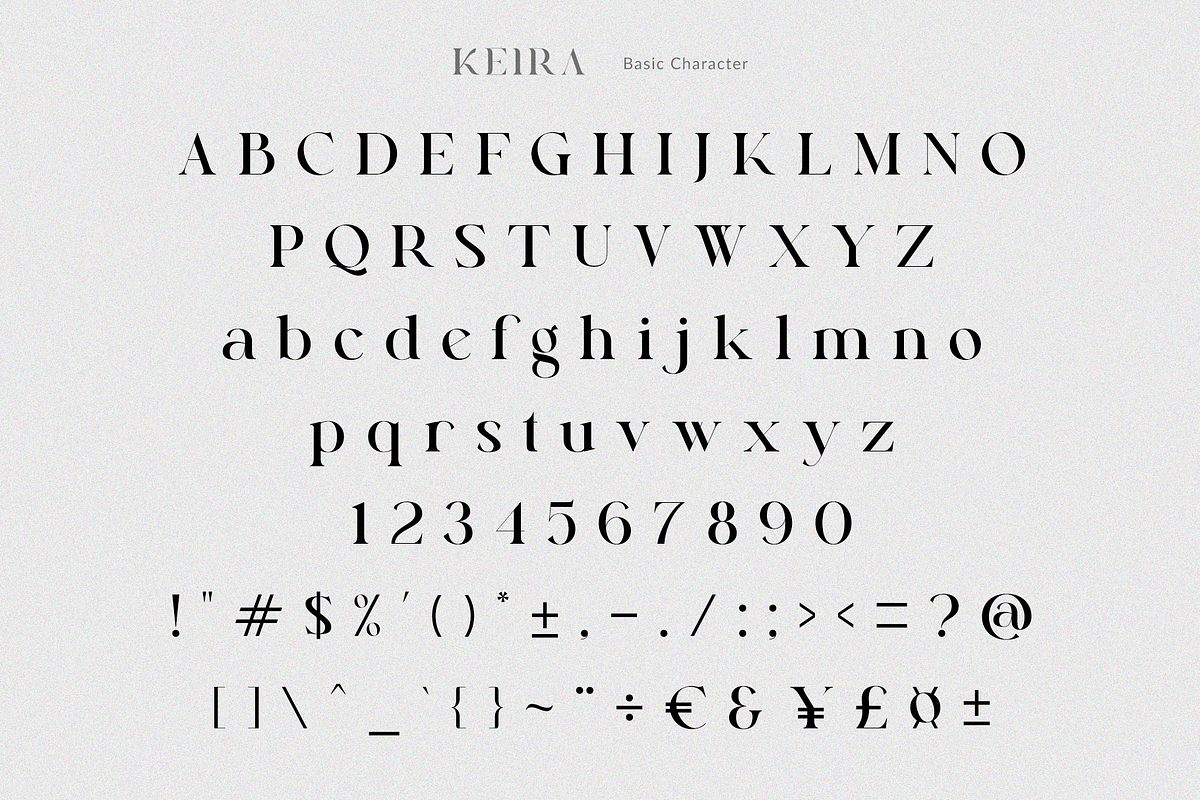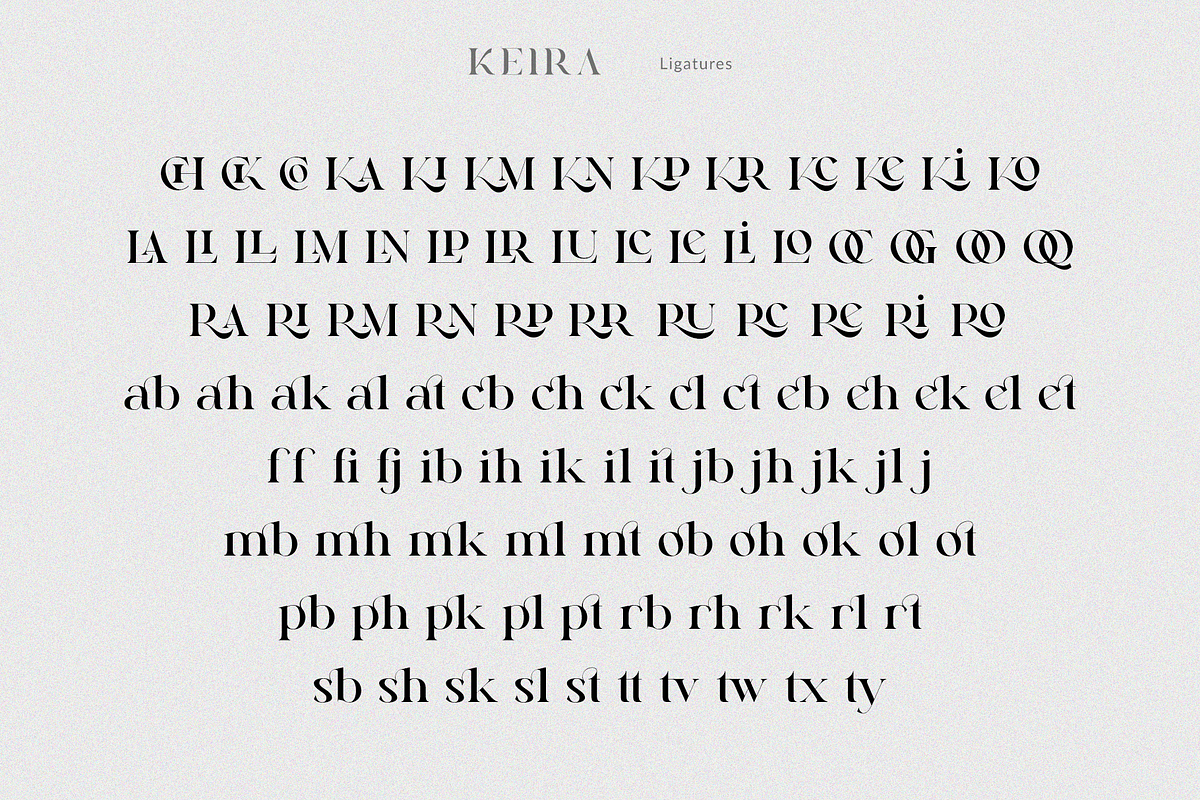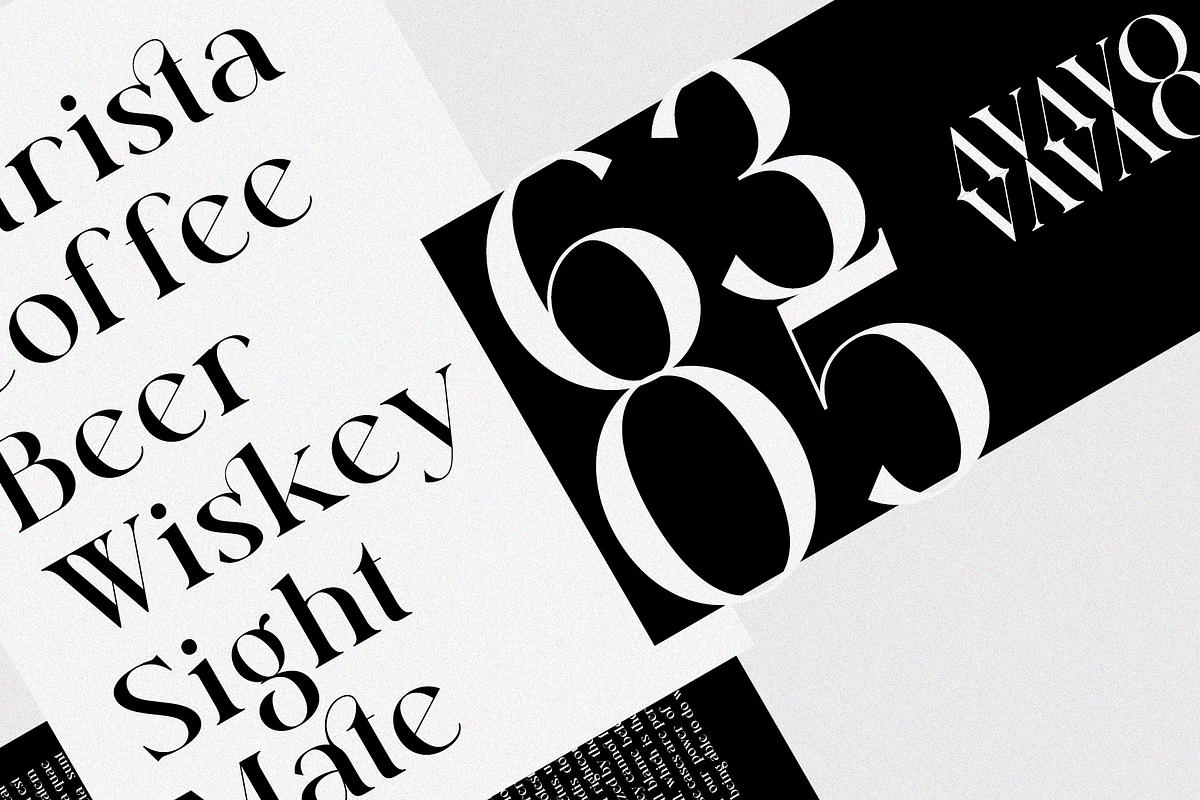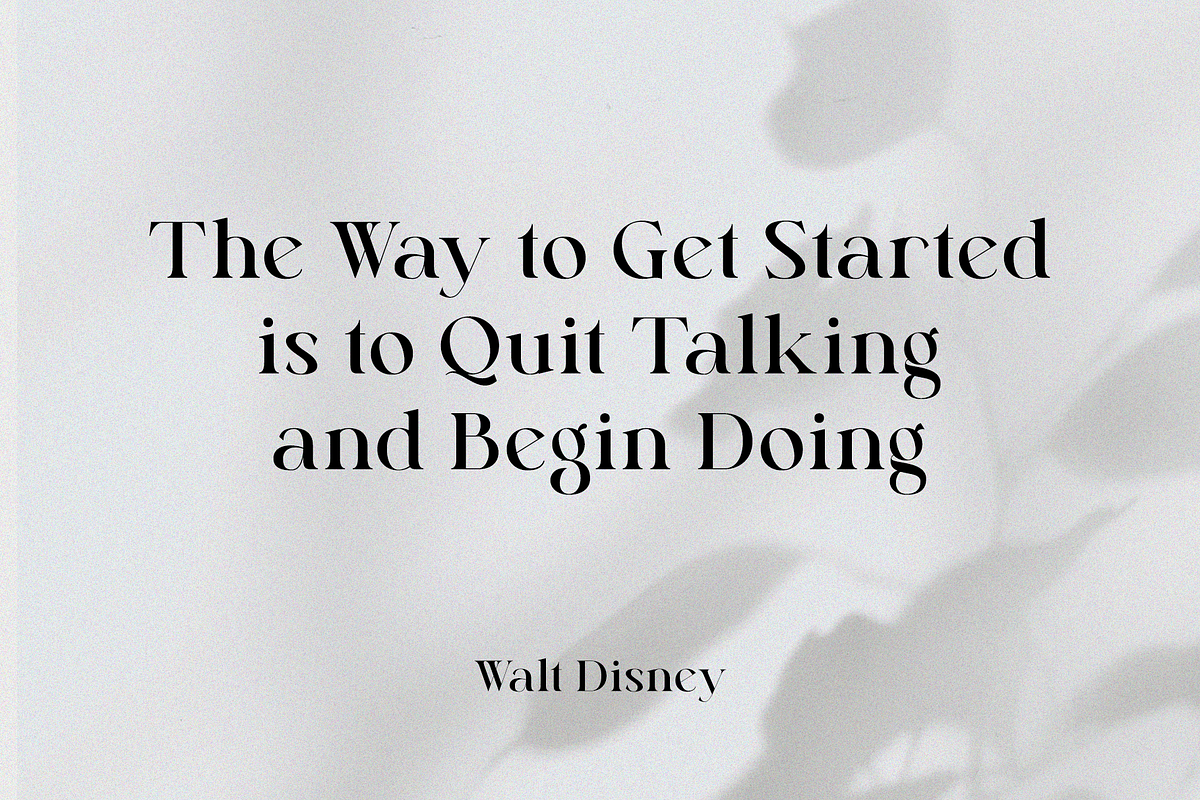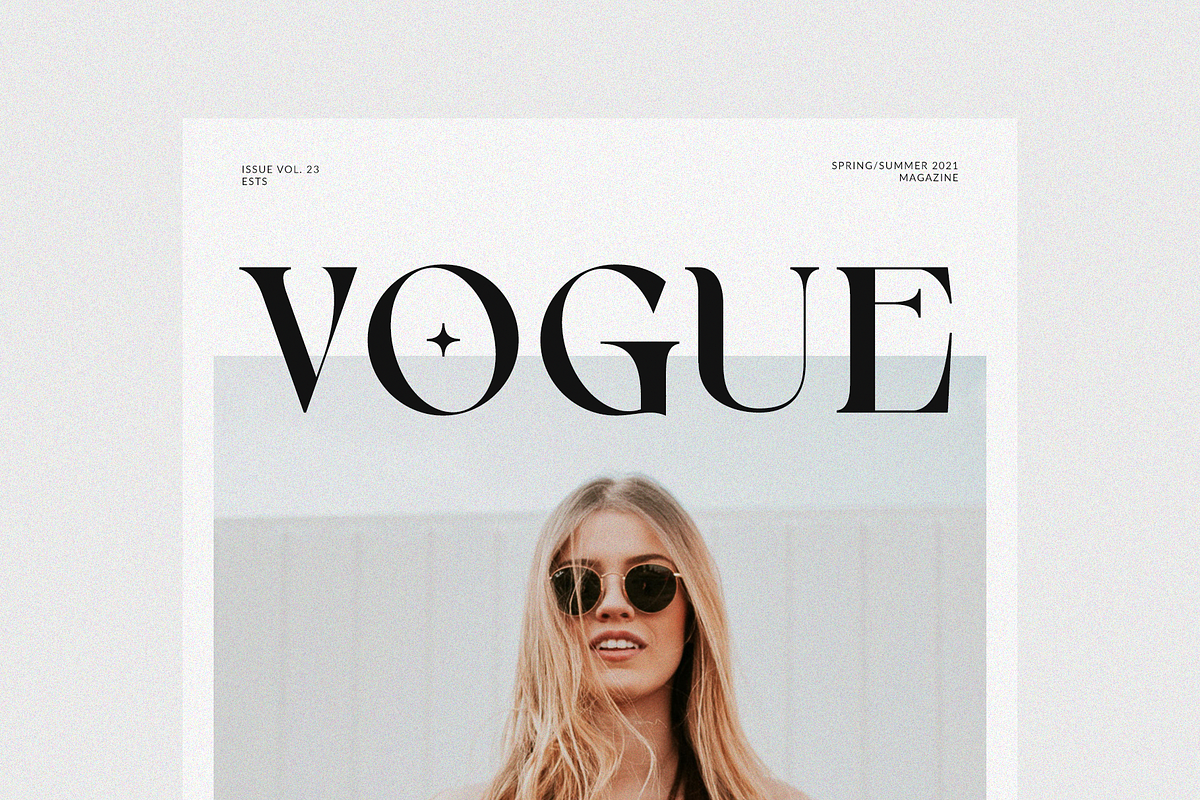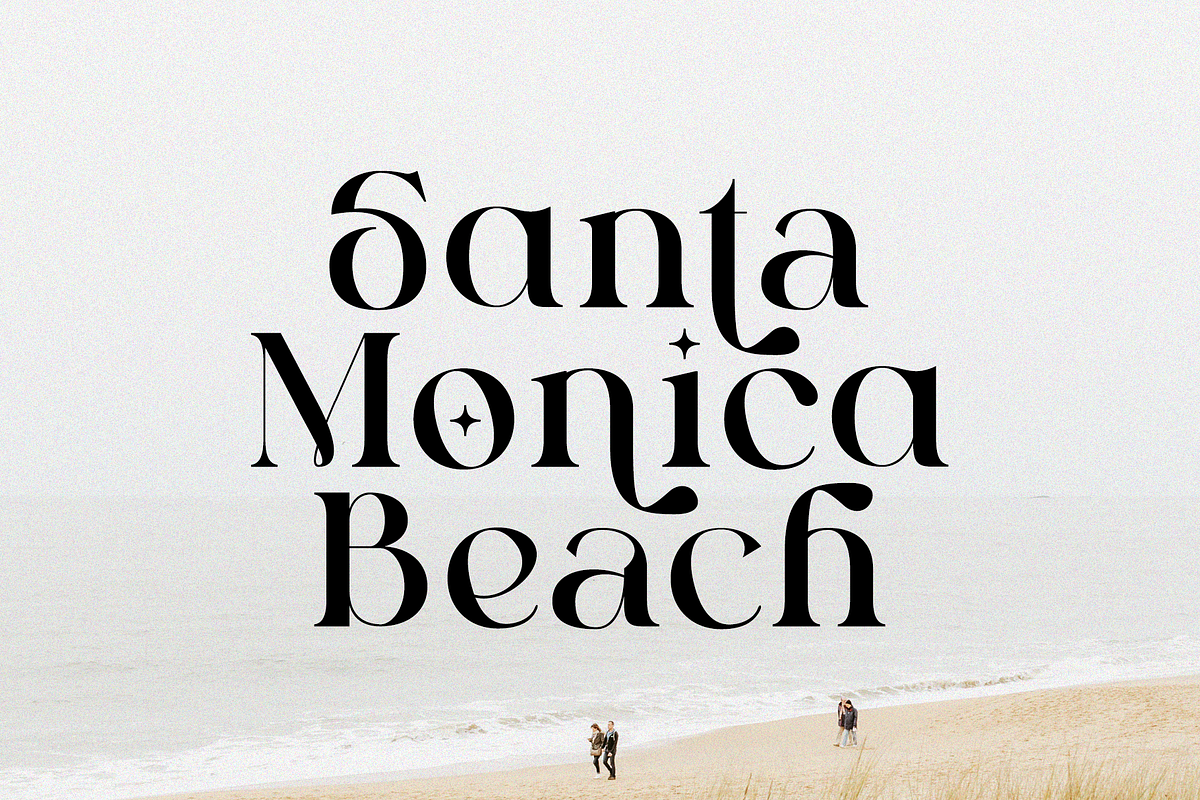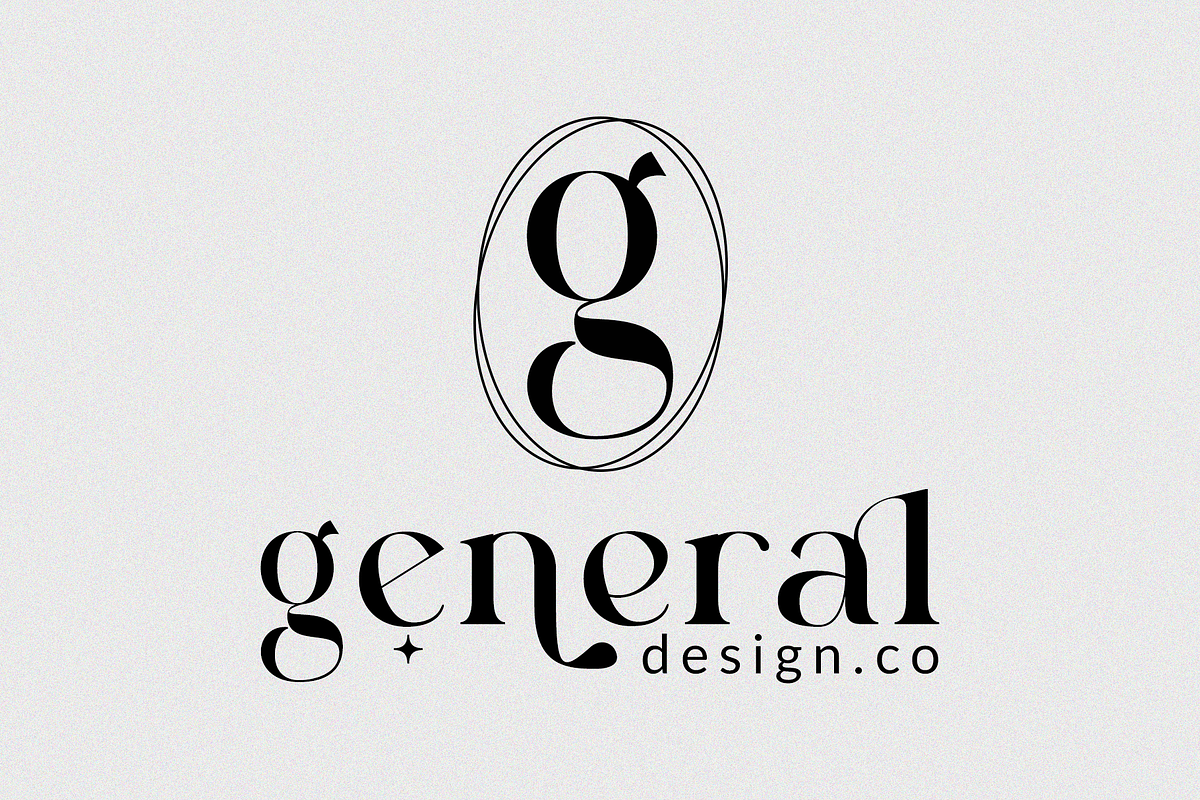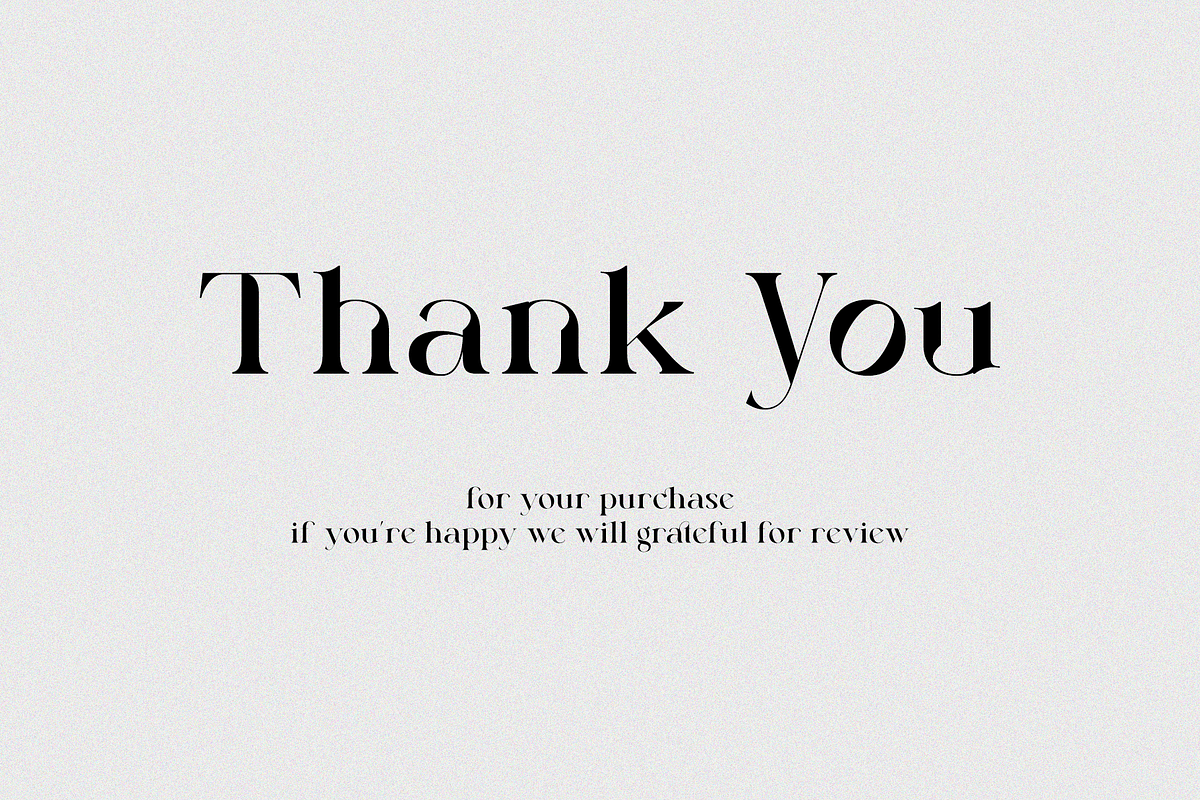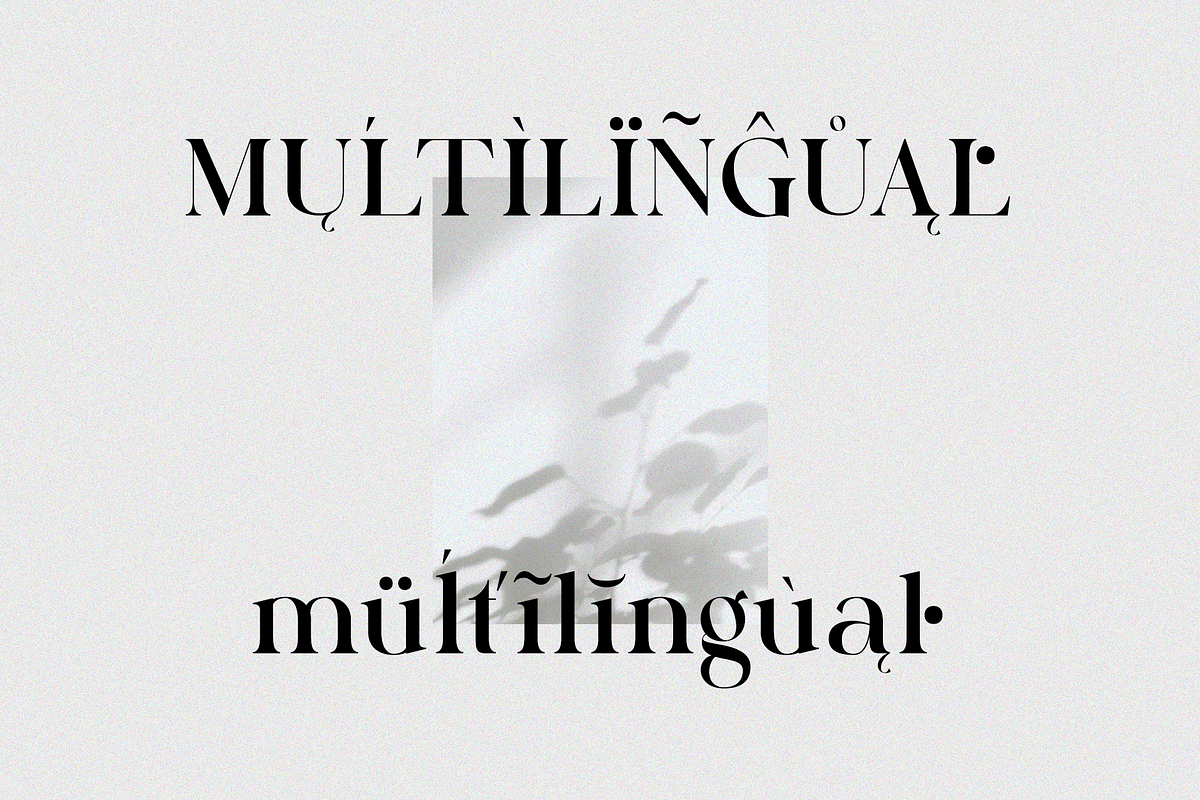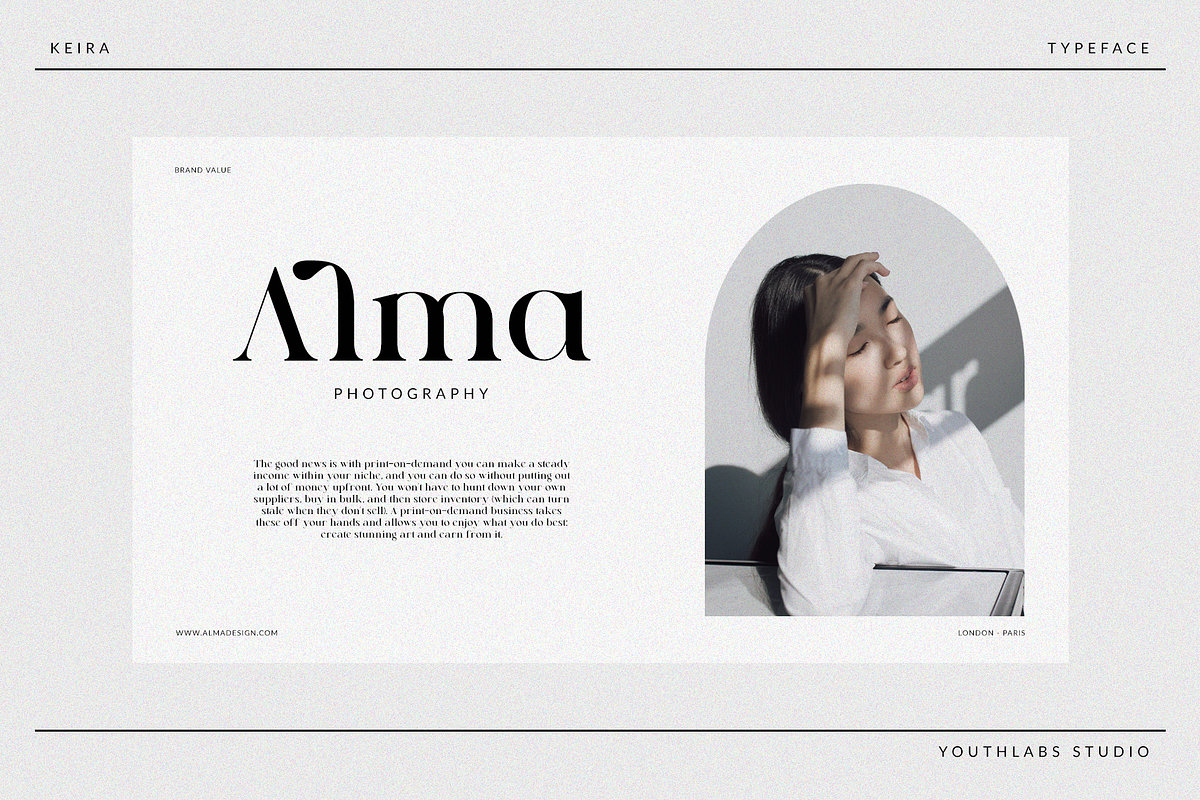
Keira Serif | Simple Elegant Font
Introducing Keira Serif Font - A Brand New Serif Font with Simple and Elegant Look, More Opentype Feature, more neat curves
Keira Serif Font Inspired by Simple and Elegant Typography. Keira Font is a very versatile font. you can use this font to various design. Basics can improve more than 200 alternative character.
Uppercase & Lowercase Alternate 91 Language Support Ligatures Stylistic Alternate